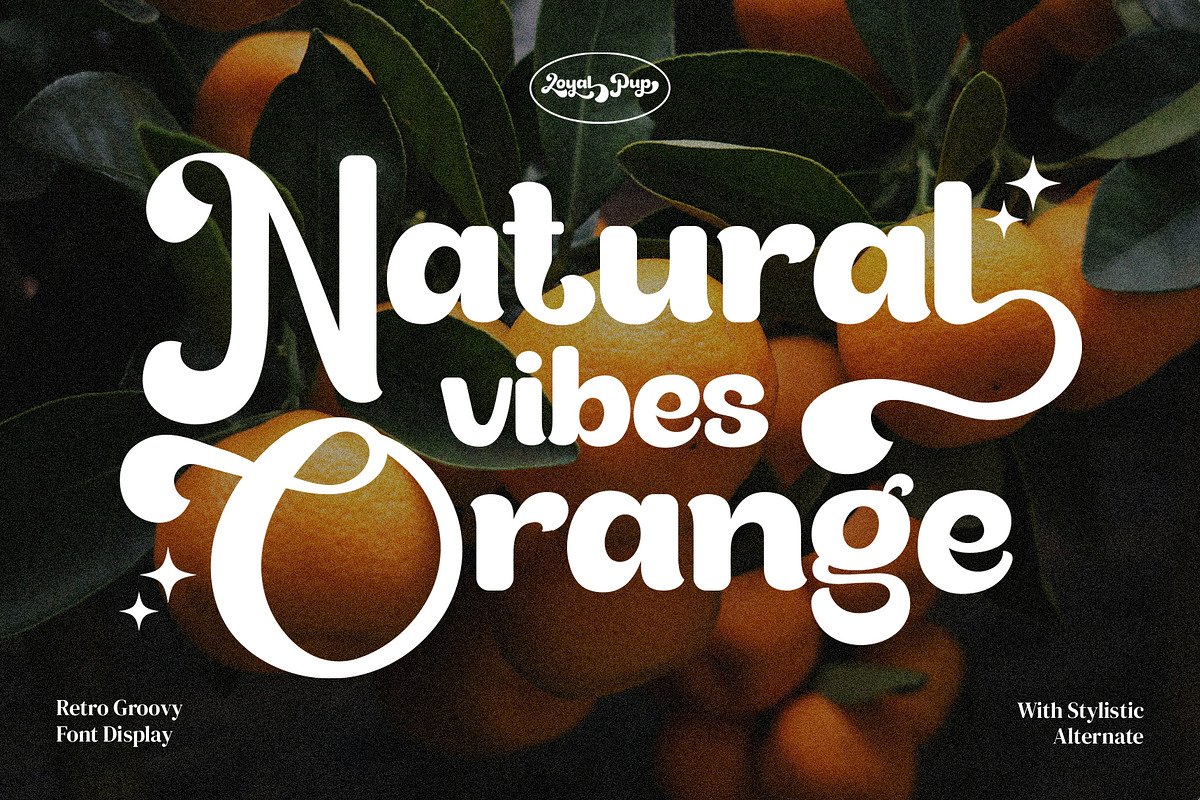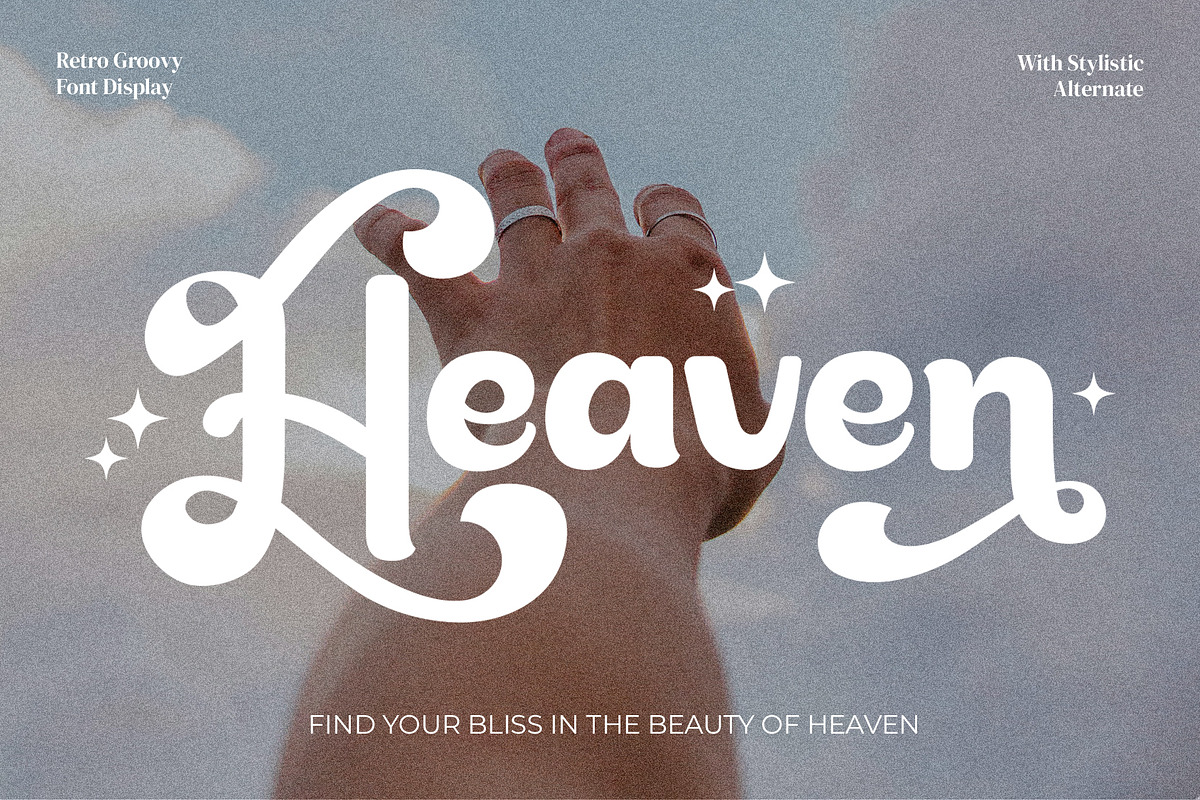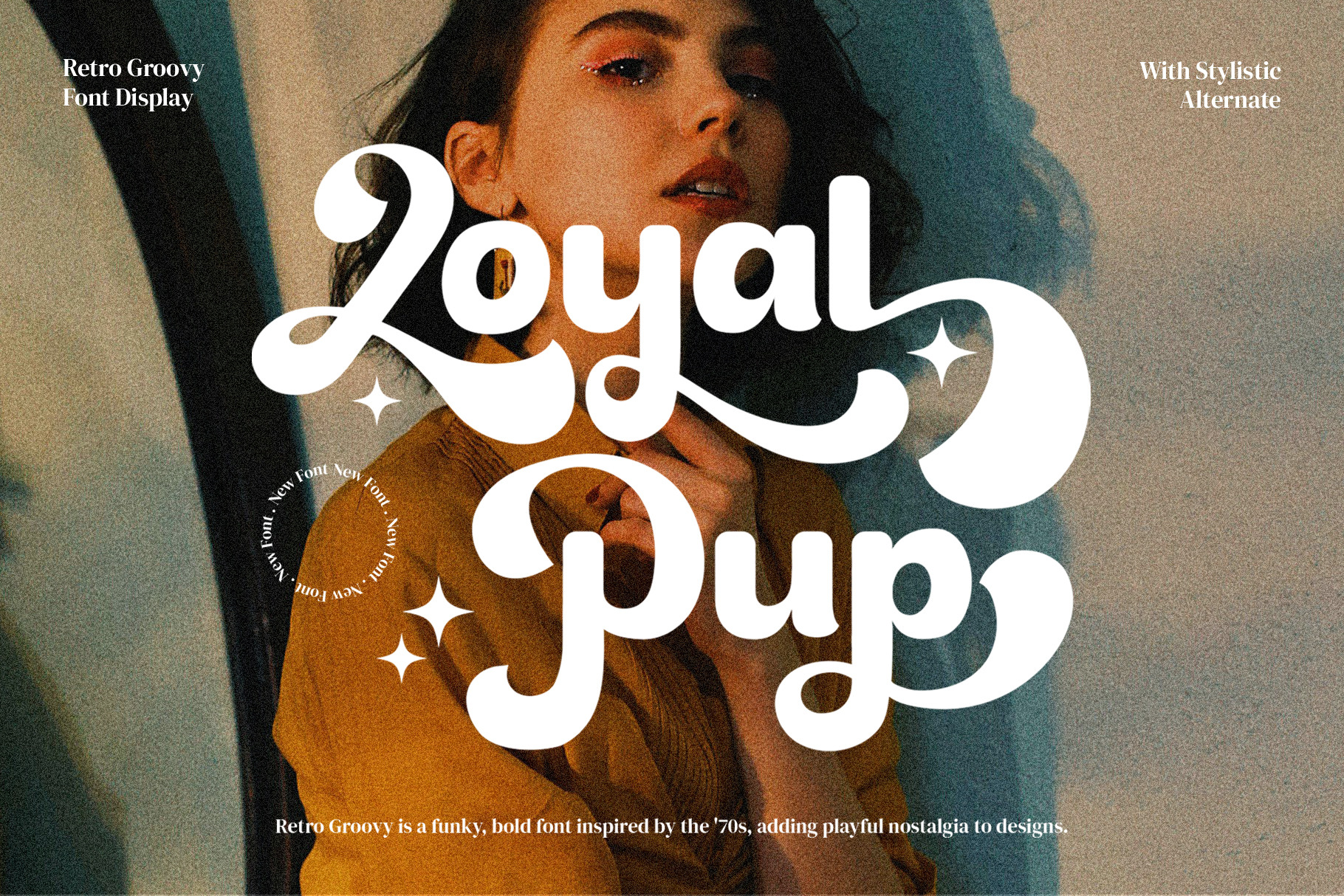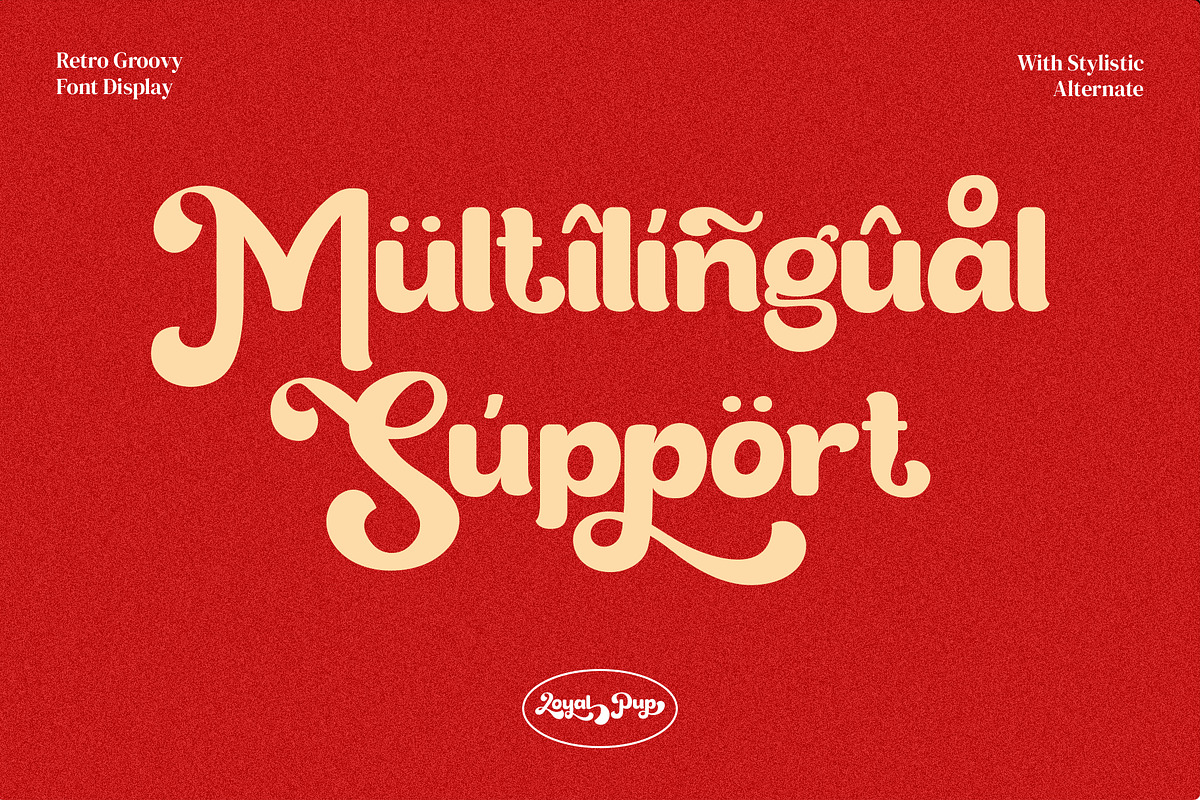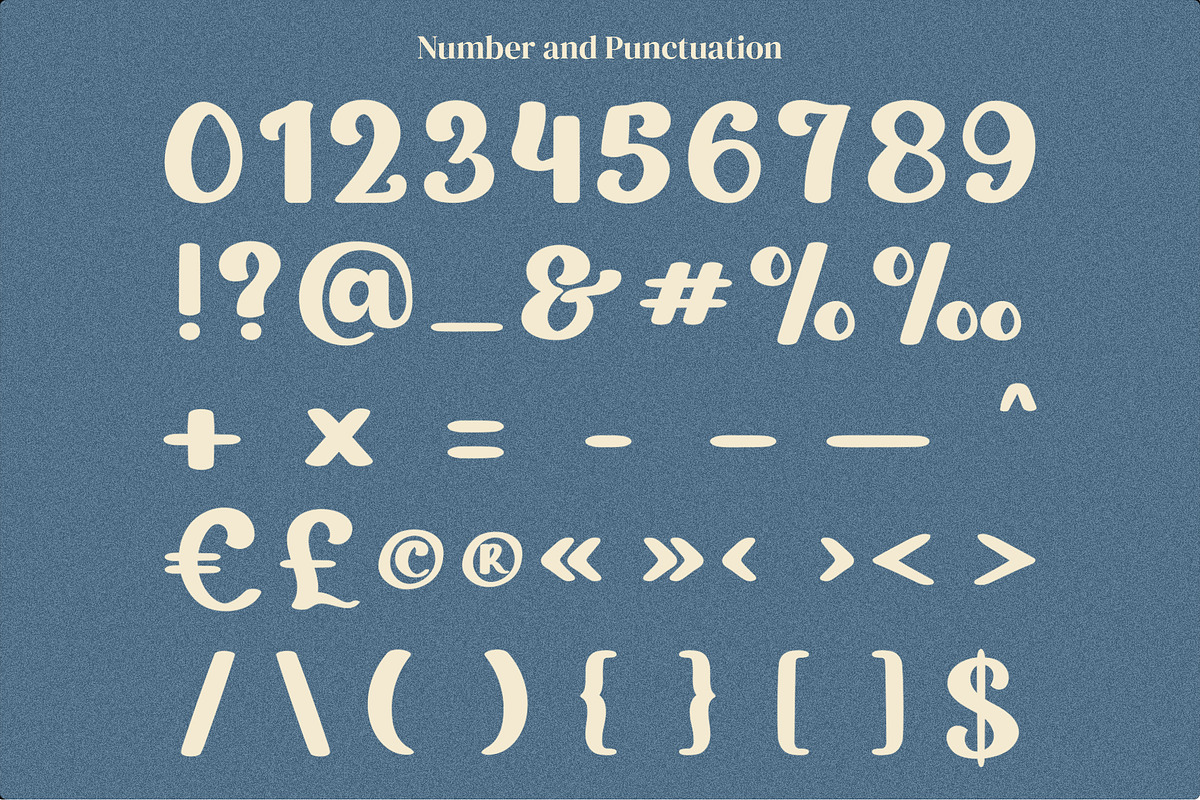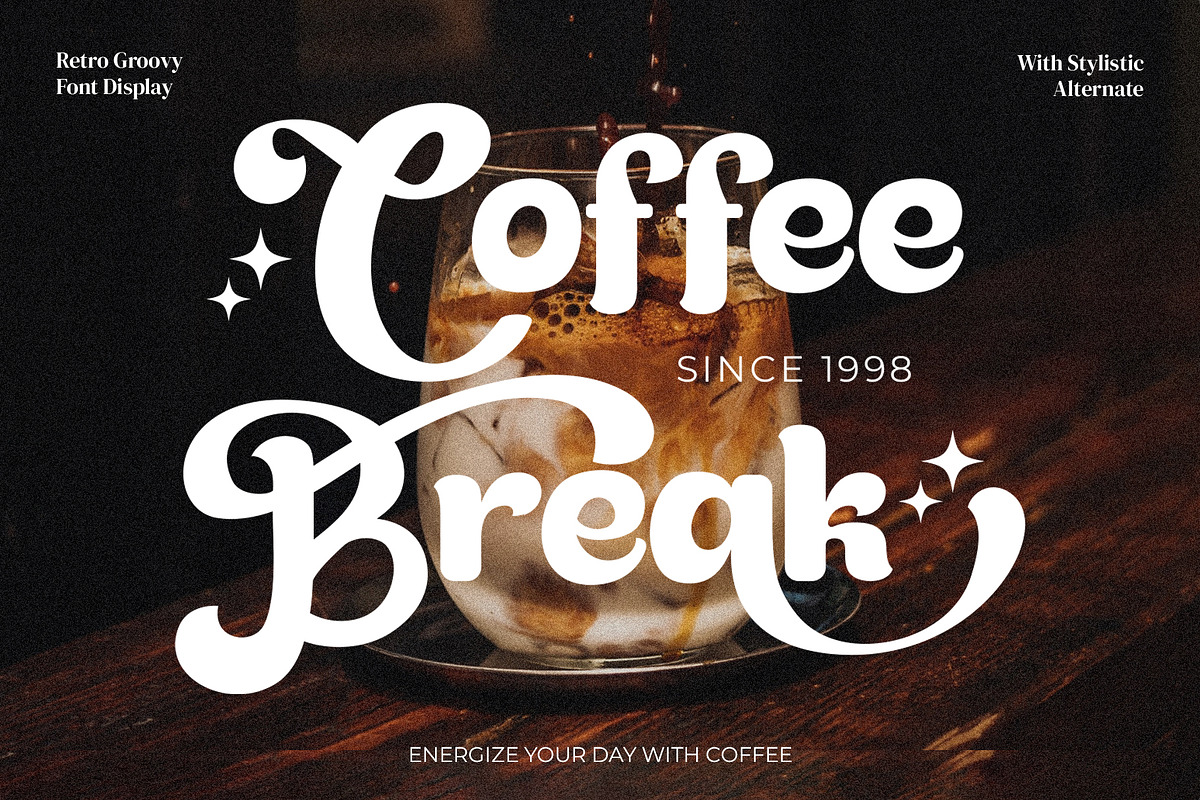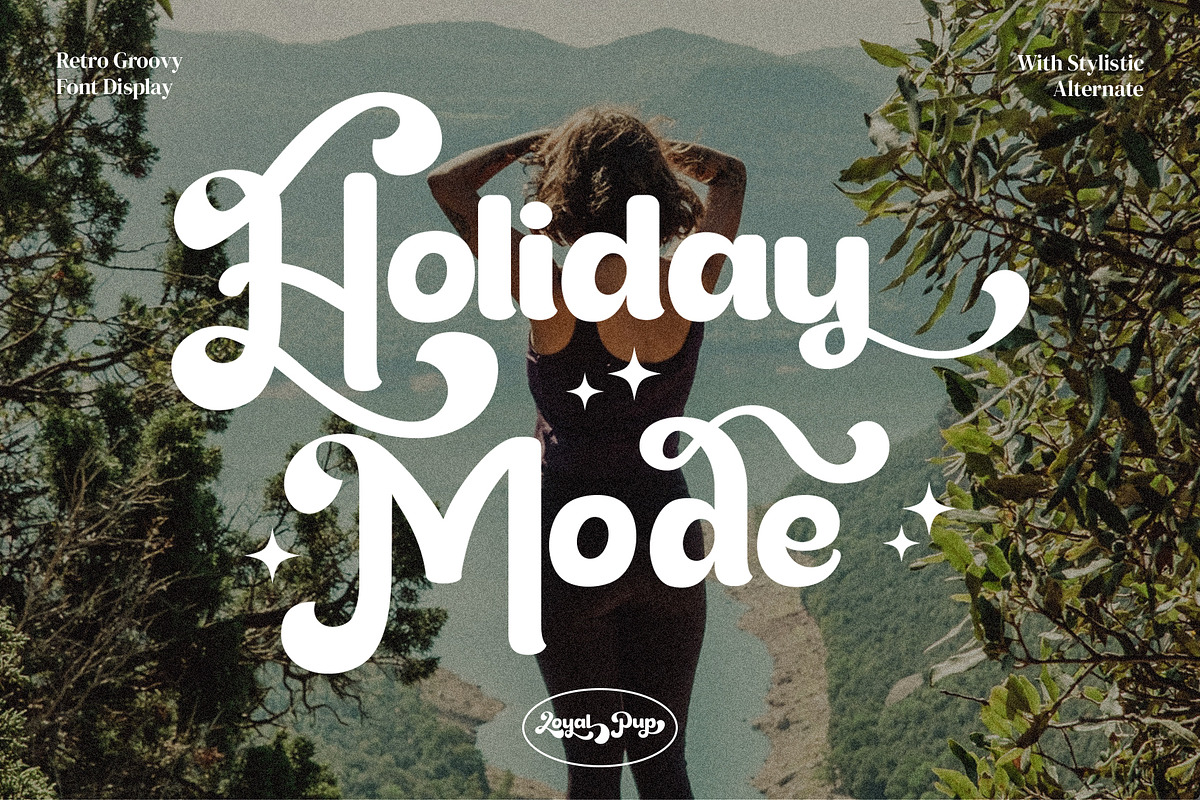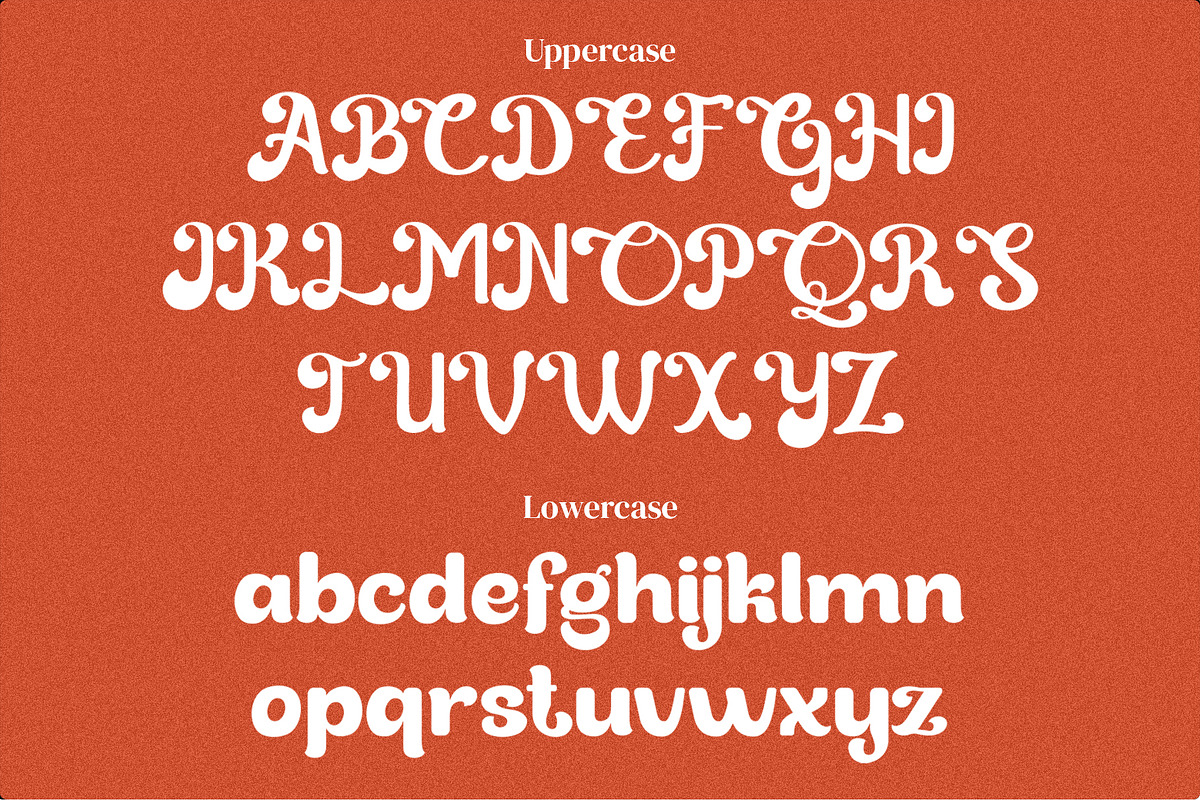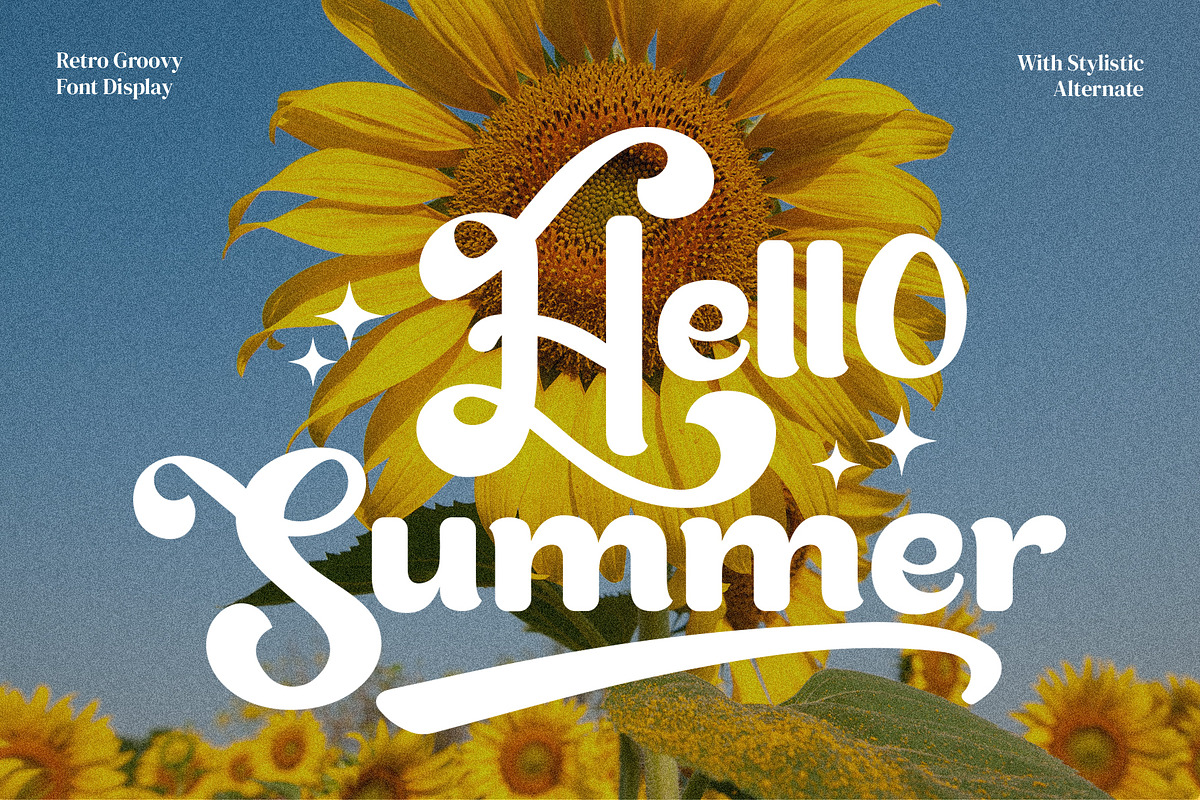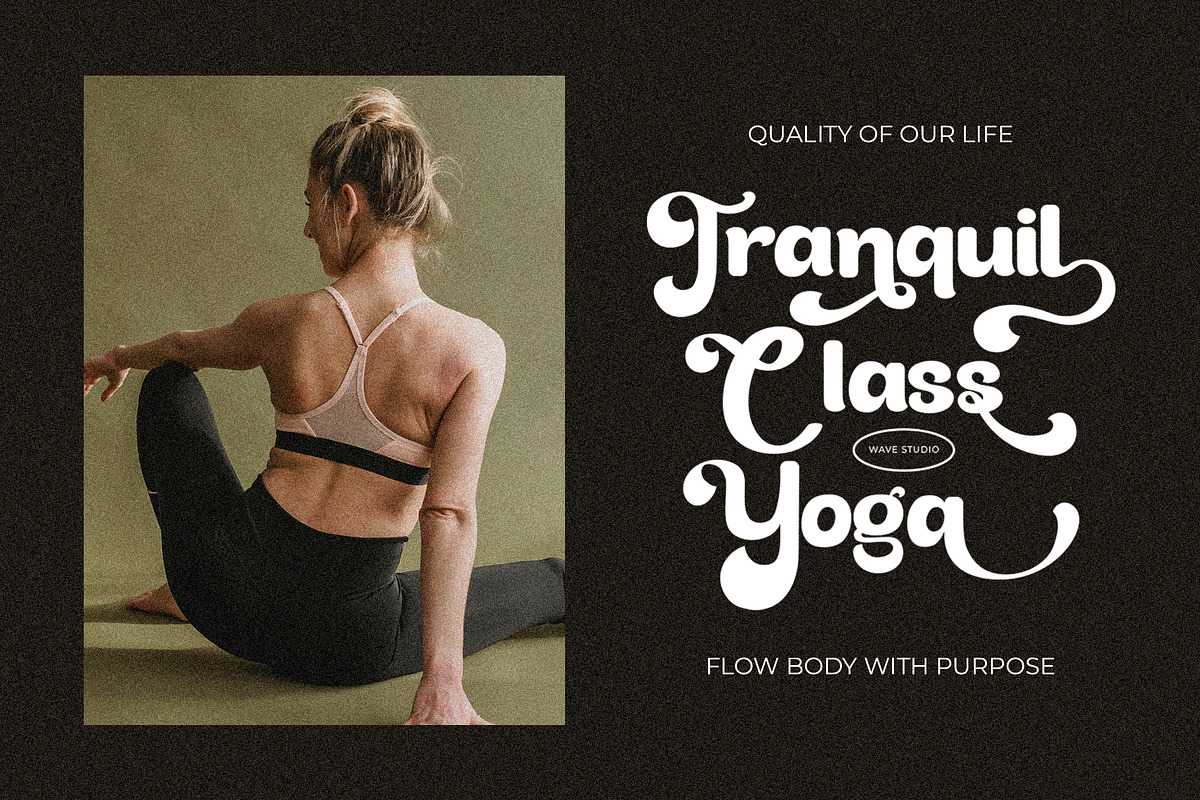
Loyal Pup - Retro Groovy Font
Introducing our retro groovy font, perfect for adding vibrant nostalgia to your designs. Bold, playful, and full of personality.
- Uppercase & Lowercase Characters: Fully designed for a complete typographic experience
- Numerals & Punctuation: All the numbers and punctuation marks you need for any design task
- Multilingual Support: Includes characters for multiple languages, ensuring global usability
- High-Quality Design: Each font is crafted with attention to detail, ensuring a polished and professional look